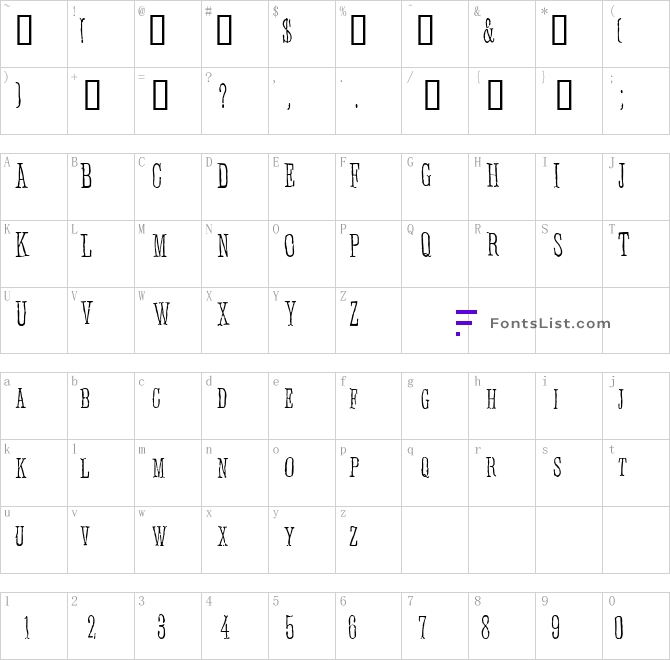
- Font Name:Anhedonia
Anhedonia.ttf is a very beautiful artistic font, Anhedonia.ttf is widely used in the design and printing of various books and pictures,Anhedonia.ttf has a strong visual impact,Anhedonia.ttf is a commonly used font in newspapers, magazines and books, and is used in posters, e-commerce Poster design, store design, logo design, font design and other fields.Anhedonia.